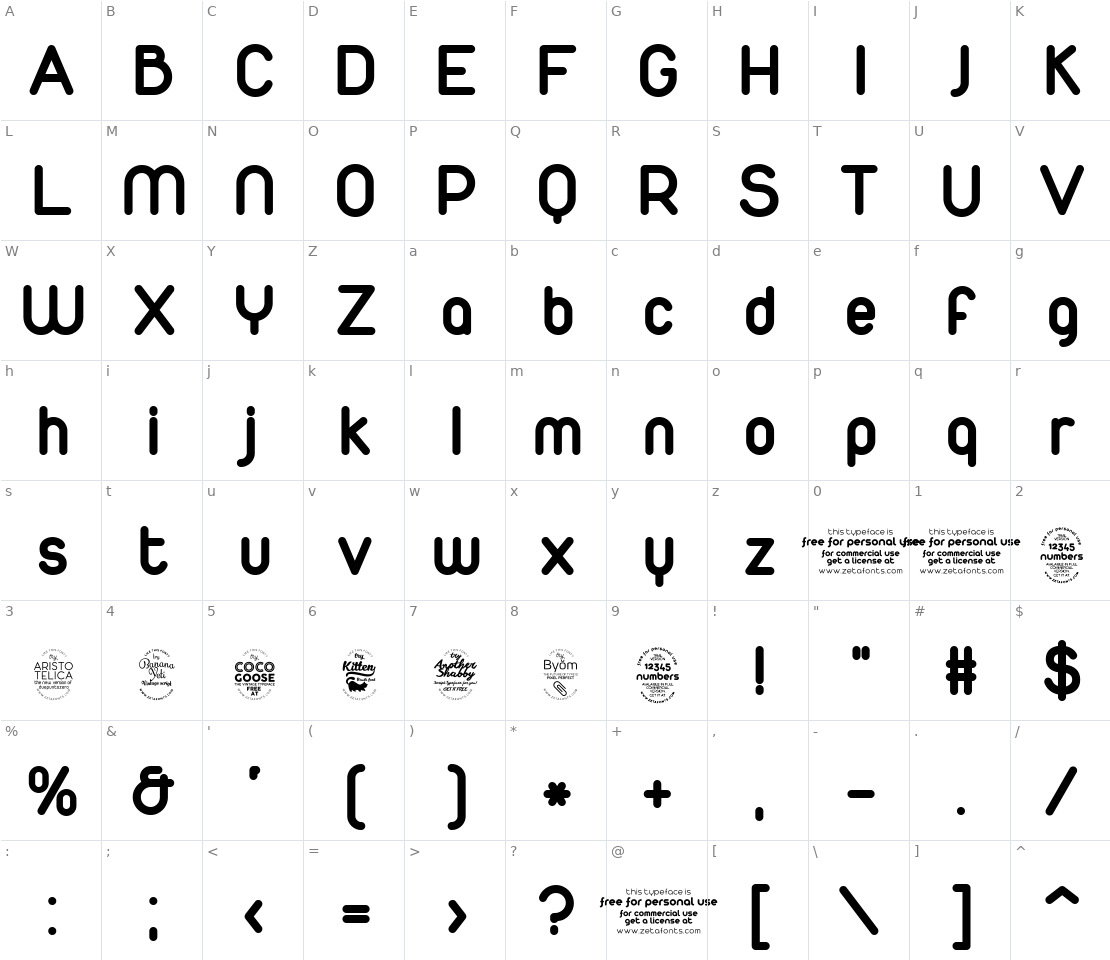
Duepuntozero
Duepuntozero is a bold, rounded geometric display face from Zetafonts with soft, pillowy terminals and clean proportions that keep it feeling modern and approachable. The letterforms are simple and confident, balancing visual weight with friendliness in a way that works for headlines, branding, and signage. Its name nods to the Italian "2.0," and the design carries that same sense of something familiar, refreshed.